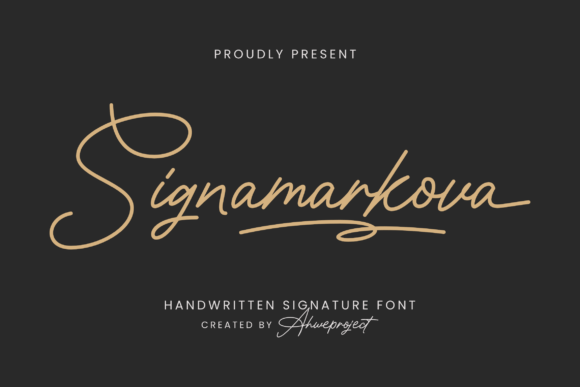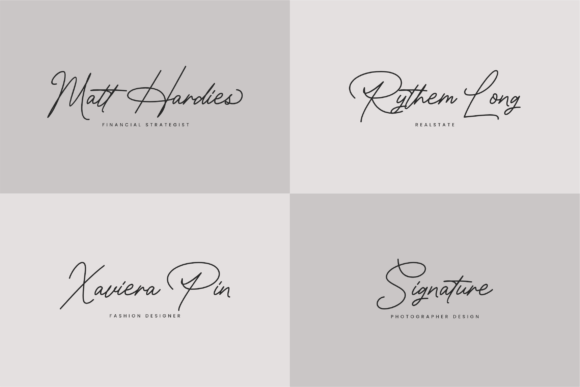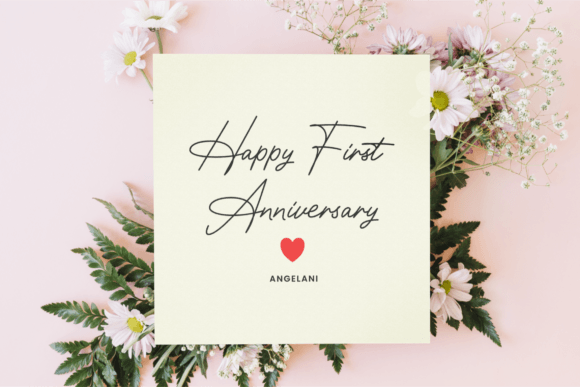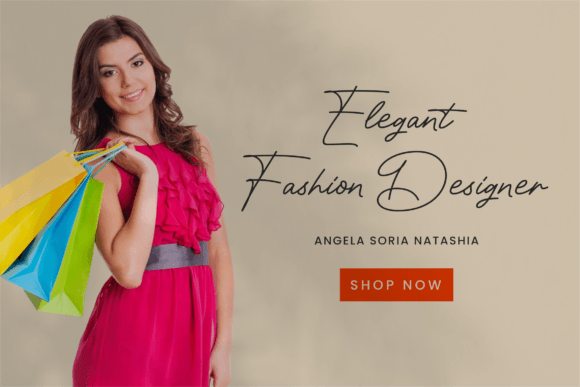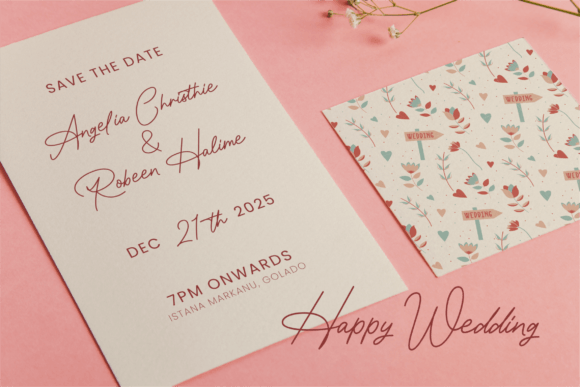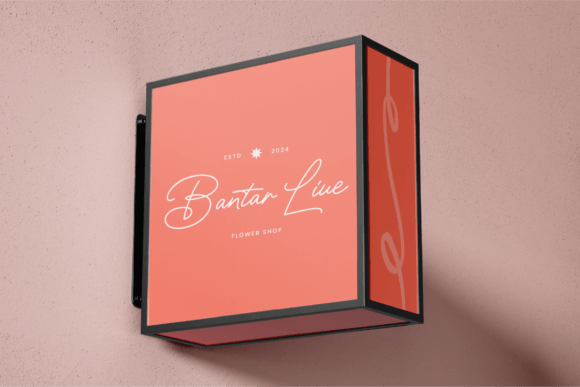
Introduction to Signamarkova Font
Imagine the moment you finally land on the perfect font to elevate your design project – a sense of excitement and satisfaction washes over you. For designers, finding the right font can make all the difference in bringing their creative vision to life. If you’re on the hunt for a unique and elegant font that exudes sophistication, you’re in luck! Say hello to the Signamarkova Font, a stunning handwritten signature font that’s sure to take your design projects to the next level.
What sets Signamarkova apart is its ability to add a personal touch to every project. With its smooth strokes and captivating details, this font is perfect for branding, invitations, logos, or any other creative work that demands a premium and artistic style. Whether you’re working on a design project from scratch or need a font to enhance your existing design, Signamarkova is a valuable resource that’s sure to impress.
Key Features of Signamarkova Font
- Unique and elegant design, perfect for creative projects and design resources
- Designed to be versatile and adaptable, making it a great addition to any design resource collection
Honest Review: Signamarkova Font
I recently had the chance to work with the Signamarkova Font, and I must say, it’s a great addition to any design resource collection. This font is perfect for creative projects that require a unique touch.
One of the things that stood out to me was the high quality of the font. The transparent background option is also a huge plus, making it easy to customize and integrate into any design.
- ✨ Unique and stylish design that adds a touch of elegance to any project
- ⚠️ Limited character set, which may not be ideal for projects that require a wide range of characters
- ⚠️ May not be suitable for very large-scale designs or printing projects
Tips for Getting the Most Out of Signamarkova Font
To get the most out of Signamarkova Font, experiment with different font sizes, colors, and styles to create unique and eye-catching designs. You can also combine the font with other design elements, such as images and graphics, to add depth and interest to your project.
Signamarkova Font is perfect for a variety of creative projects, including logos, brochures, posters, and social media graphics. Its high quality and transparent background make it ideal for creating intricate designs and graphics, while its free download option makes it accessible to designers of all levels.